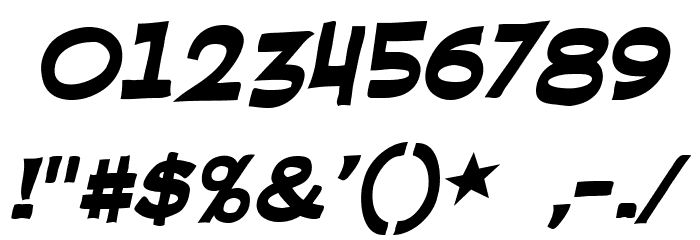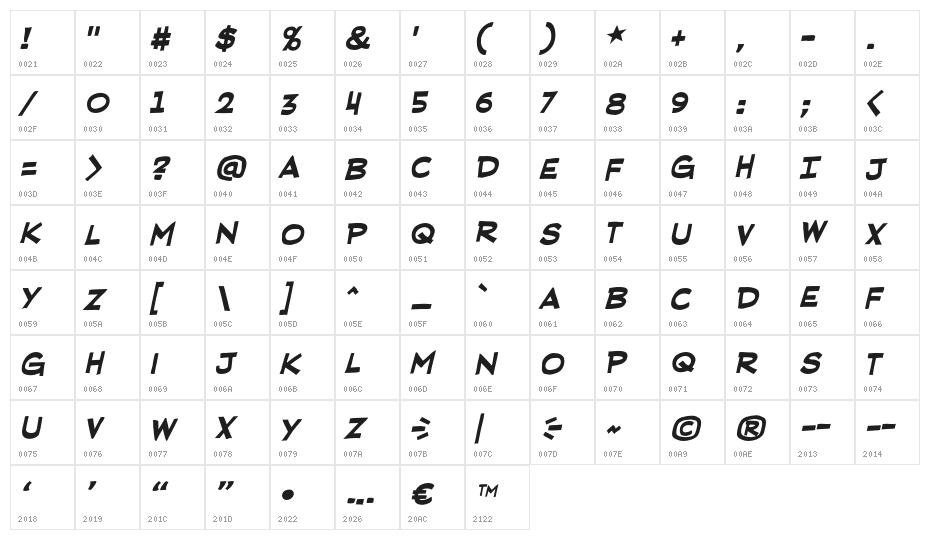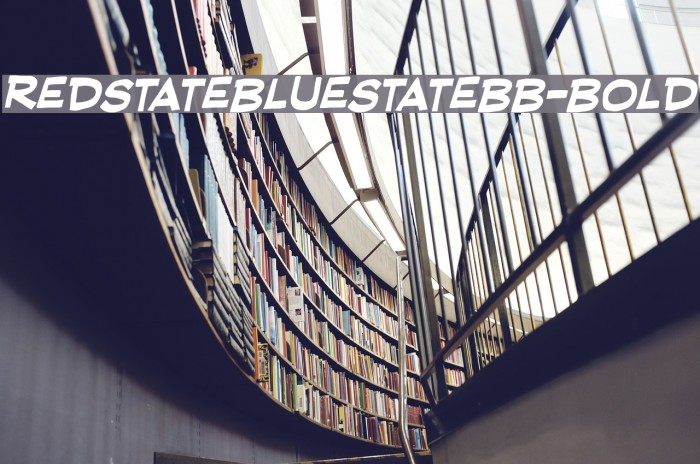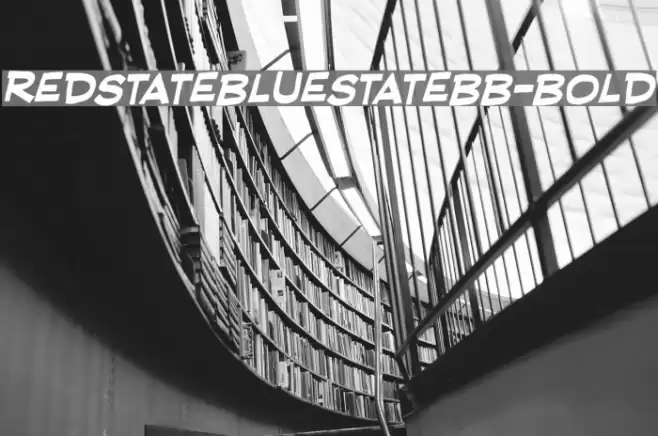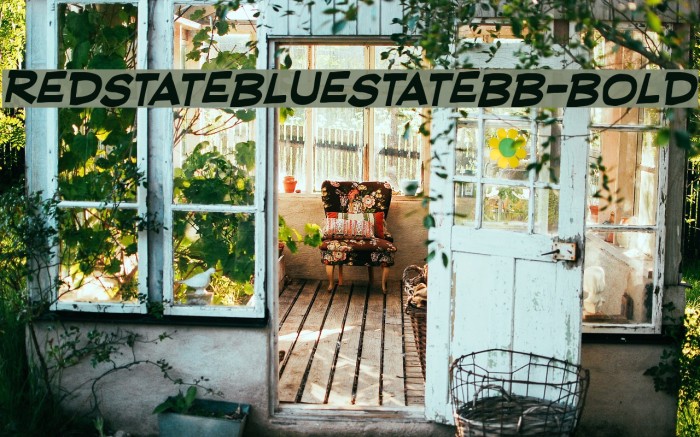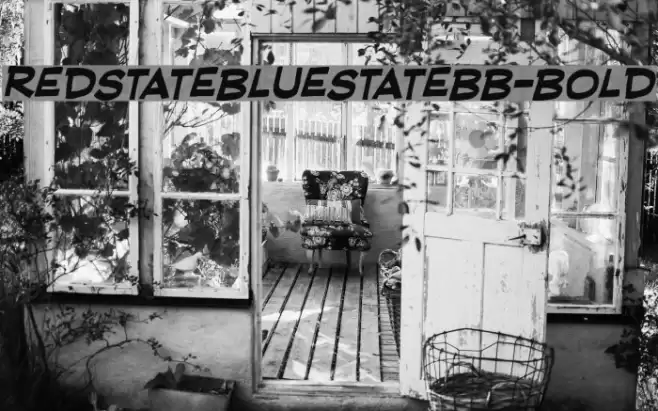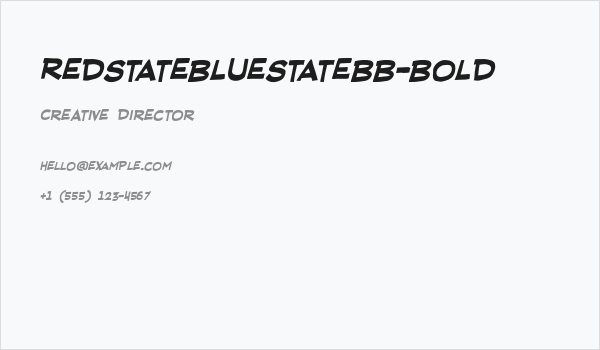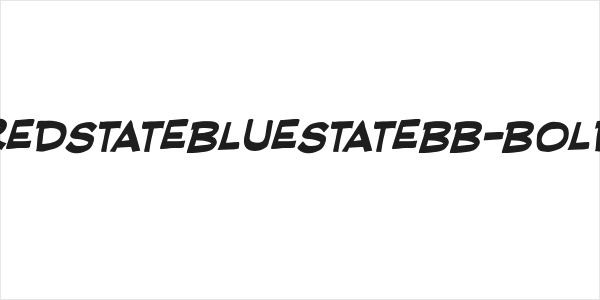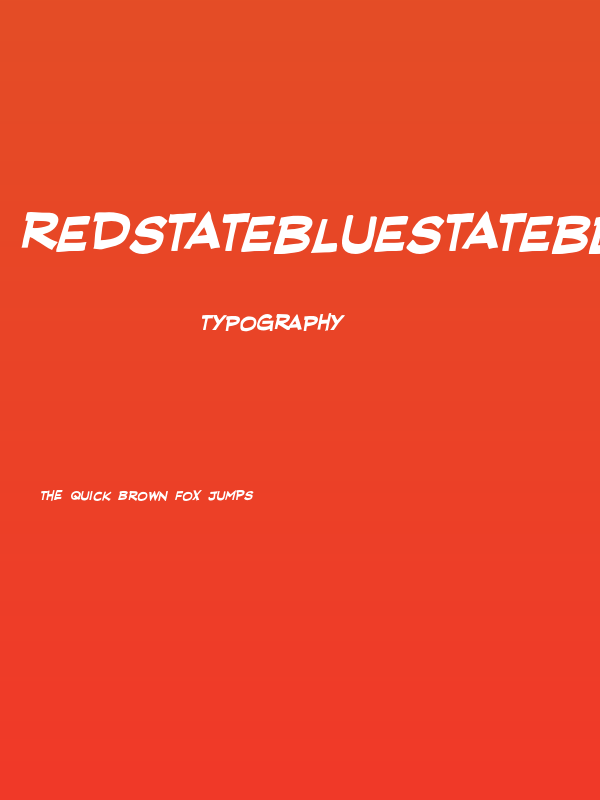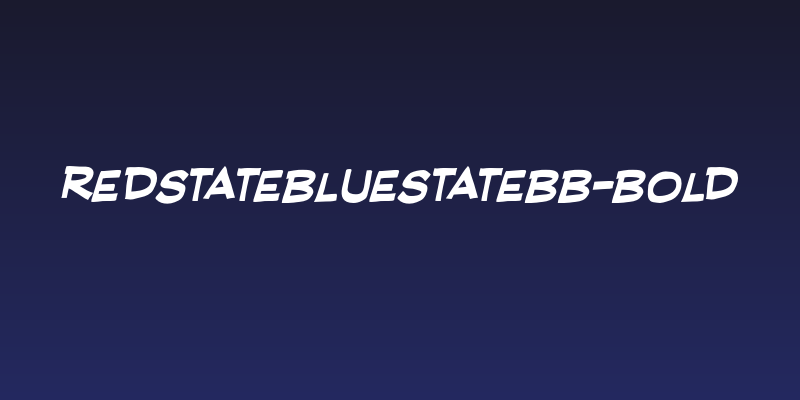
RedStateBlueStateBB-Bold Font
RedStateBlueStateBB-Bold Description
This font features a bold and dynamic style with a slight slant, giving it a sense of movement and energy. The characters are thick and robust, with a playful yet assertive appearance. The uppercase letters are particularly striking, with a consistent stroke width that enhances readability. The numerals and special characters maintain the same boldness, ensuring uniformity across all glyphs. This font's unique style makes it suitable for eye-catching designs.
| Proposed Projects | Ideal for posters, headlines, branding materials, and any design requiring a bold statement. |